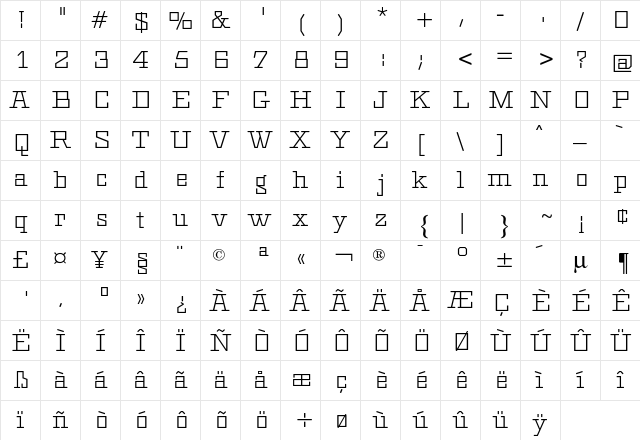
Geometric CG Light Regular
Design Context for Geometric CG Light Typeface
Geometric CG Light offers clean, dependable letterforms without strong stylistic allegiance, making it a practical choice for designers who need flexibility. The delicate stroke weight brings airiness and refinement to layouts.